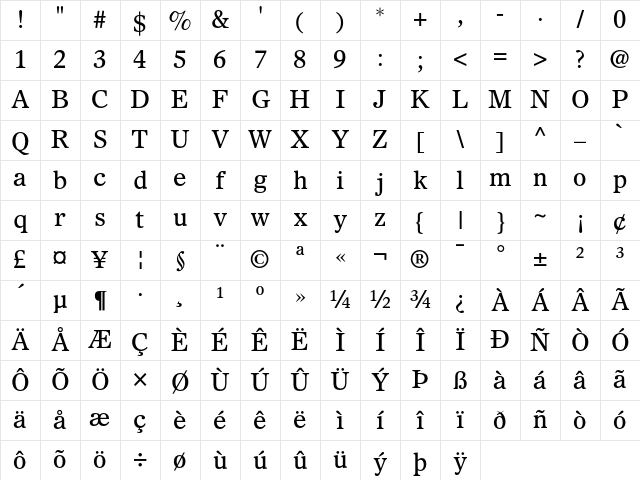
Olympian Roman
Olympian Family
Olympian Roman
Complete Olympian Roman glyph index. Displaying only characters natively supported by Olympian Roman font.
Design Context for Olympian
Olympian is a composed and adaptable typeface that performs quietly and consistently across a wide range of design contexts.